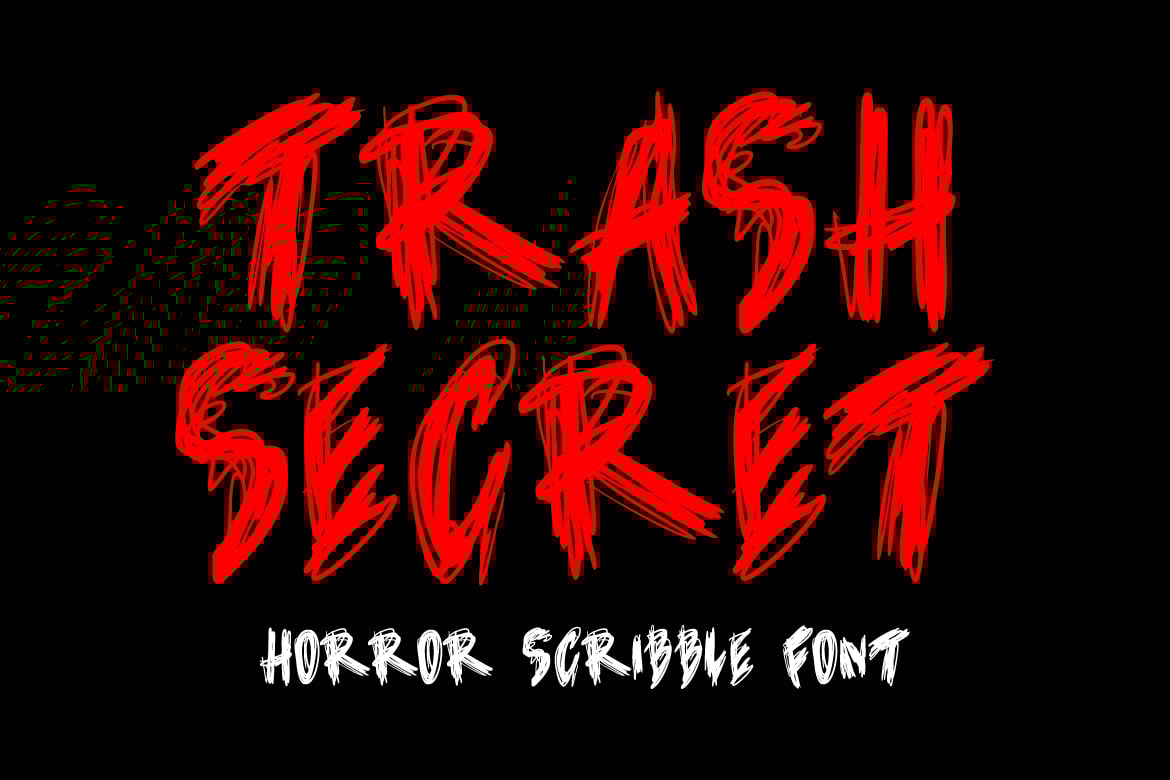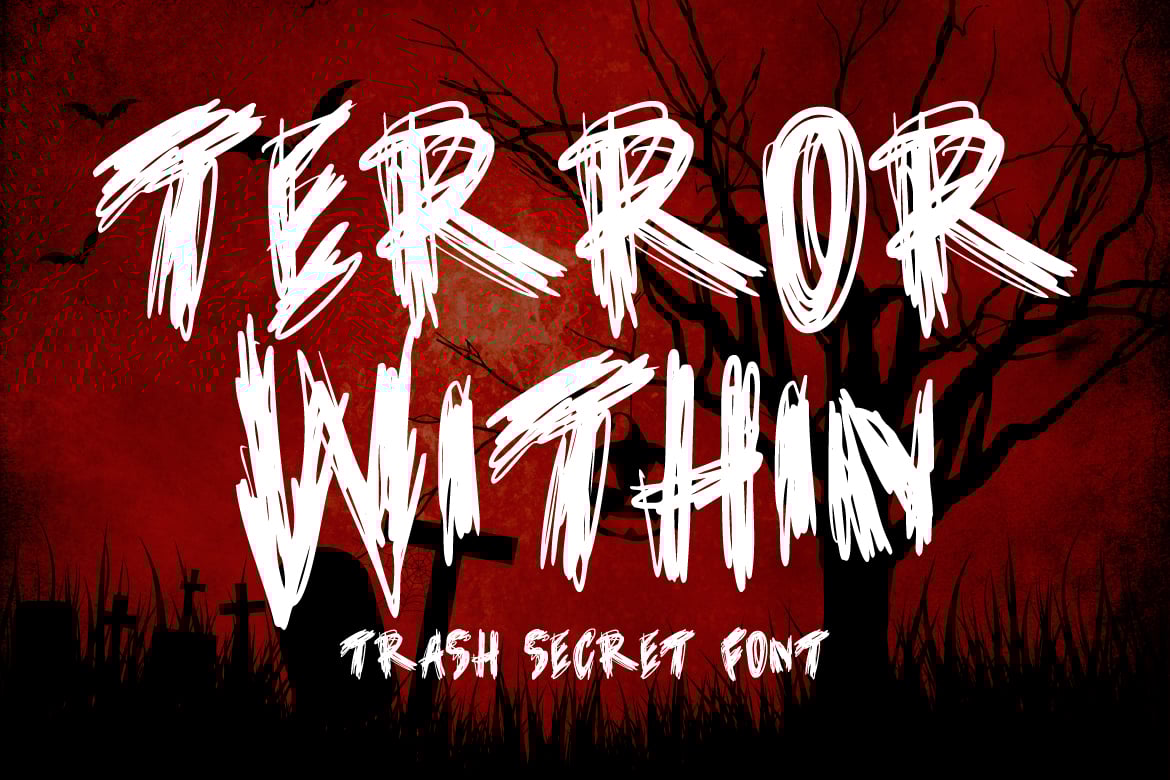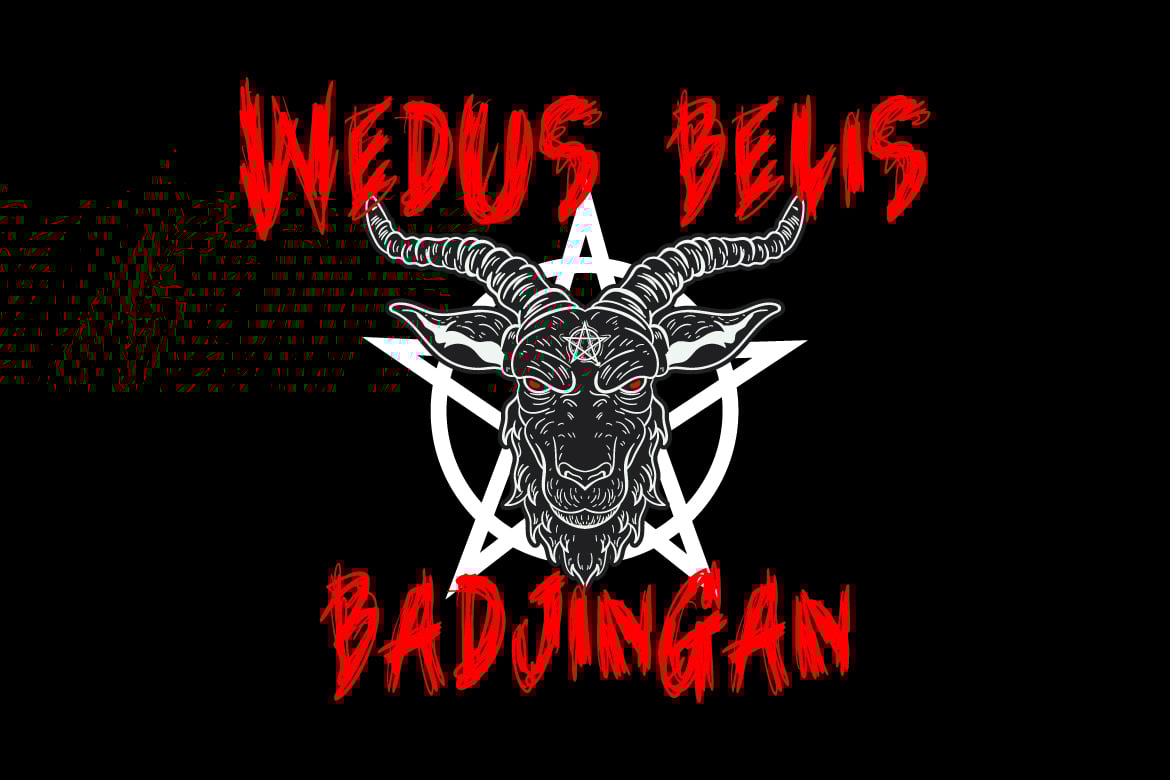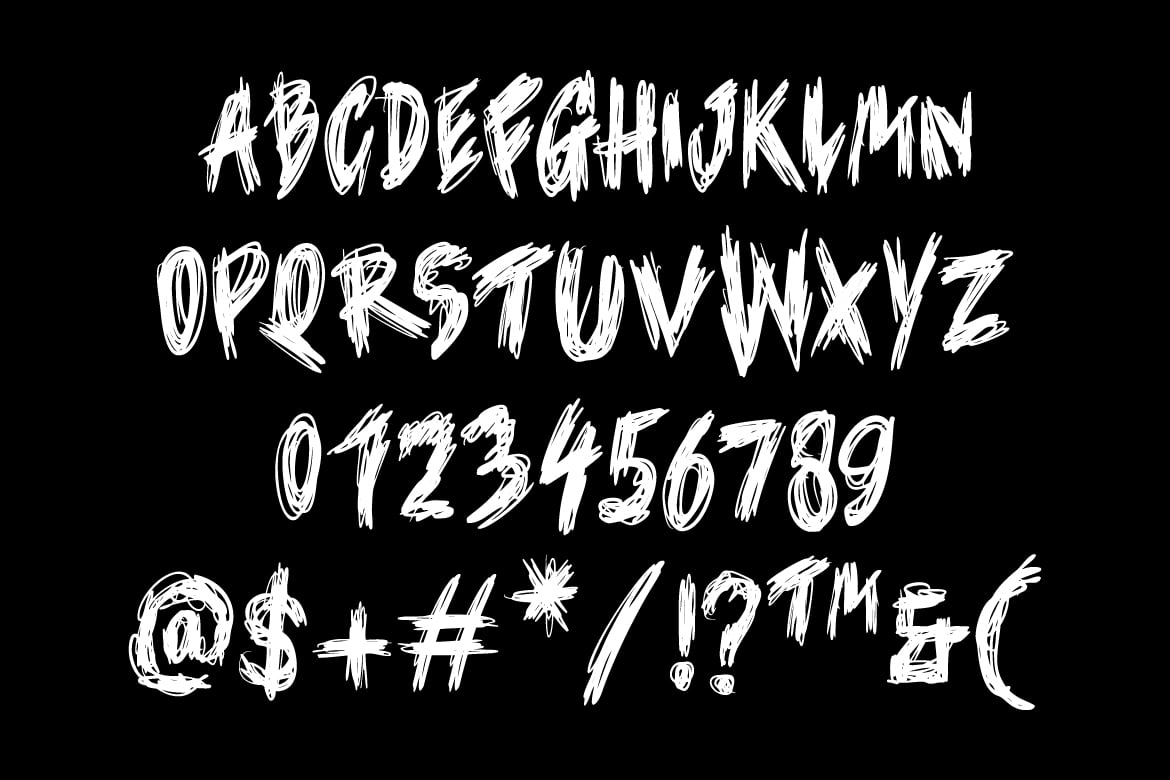
Trash Secret – Horror Scribble Font
Trash Secret by Trash Fonts
“Trash Secret” Font is a wild expression of creativity, meticulously hand-drawn in a scribbled, chaotic style. It’s the embodiment of rebellious artistry that’s ideal for a wide array of design applications. From merchandise with a rebellious edge to attention-grabbing posters and unforgettable logos, “Trash Secret” Font brings an unruly authenticity to your creative projects. Explore the untamed possibilities and infuse your designs with the power of “Trash Secret.”